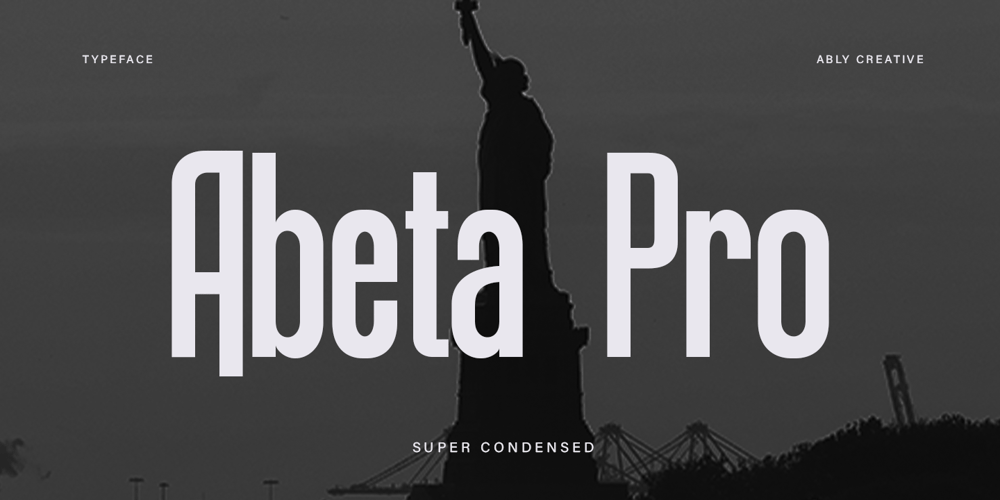
Abeta Pro
Abeta Pro font
Abeta Pro Font Family was designed by Amrullah Medan, Amrullah and published by Ably Creative. Abeta Pro contains 1 styles and family package options. ABETA Pro is a modern font designed with consistent metric precision, providing a clean and elegant look in every design element. With its clean lines and balanced proportions, this font offers high flexibility for a variety of professional and contemporary design needs. In website design, ABETA Pro presents a minimalist and professional impression, creating structured, easy-to-read typography that supports intuitive navigation. For company logos, this font provides a strong and classy identity, exuding trust and credibility through a simple yet elegant design. In addition, this font is also ideal for brochures, enhancing the presentation of products and services with a modern and informative look. ABETA Pro is also very suitable for event branding, giving a sophisticated touch to invitations, posters and other promotional materials. With a stunning and professional appearance, ABETA Pro is the right choice for designers who want a balance between modern aesthetics and high functionality, ensuring every design project looks elegant and classy.